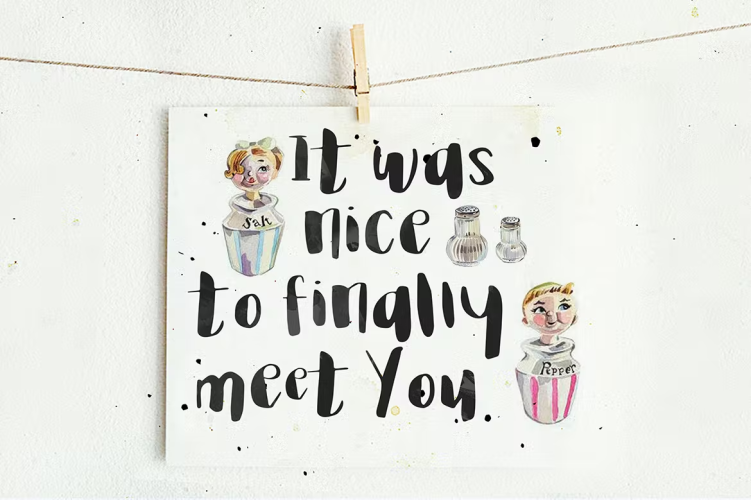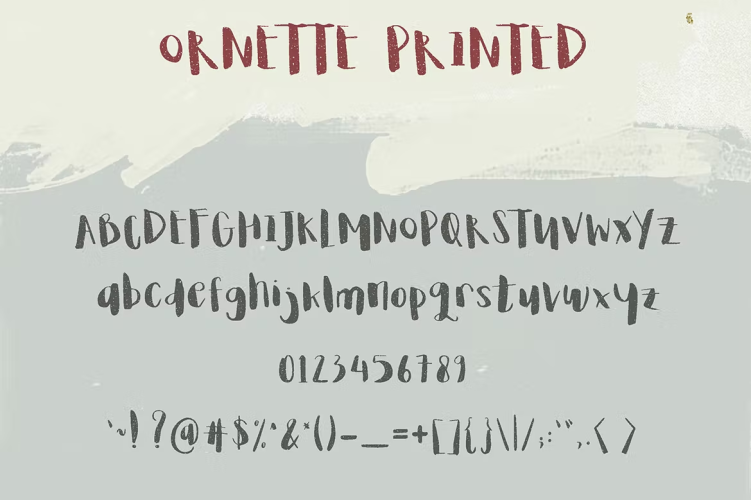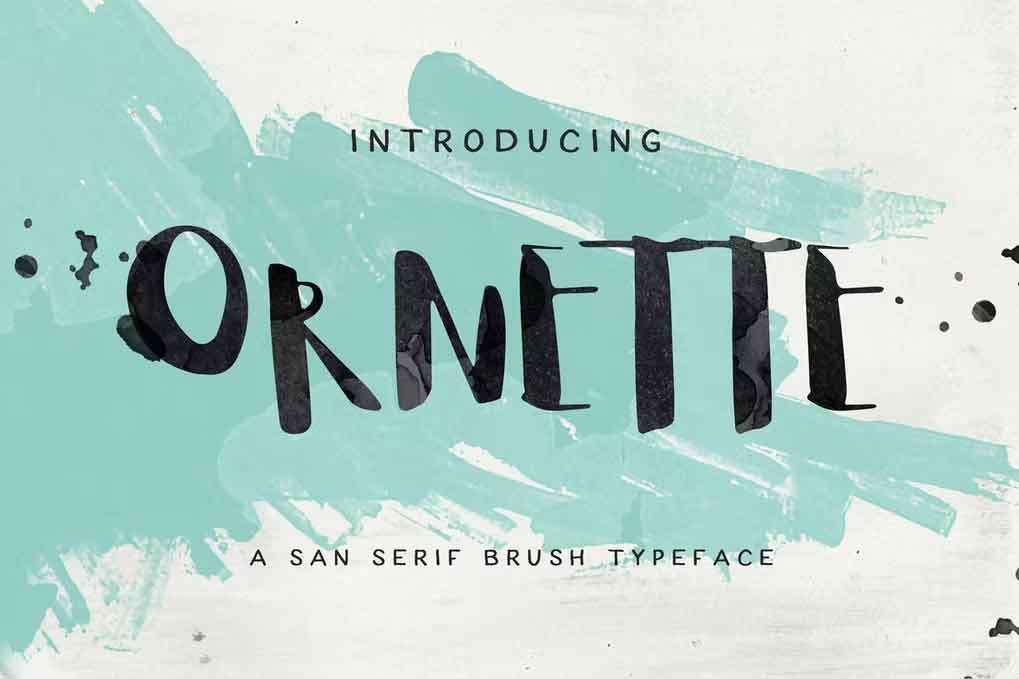
Ornette Font
Ornette is a casual, cursive san serif font. Created with the idea of the hand lettering, Ornette is best for: wedding invites, birthday cards and greetings, illustratio…
Ornette is a casual, cursive san serif font. Created with the idea of the hand lettering, Ornette is best for: wedding invites, birthday cards and greetings, illustration, return address, signature, branding work, logo and tons more. There are 2 types of Ornette, Regular and Printed, just so you can mix and create a rustic design style with the font.